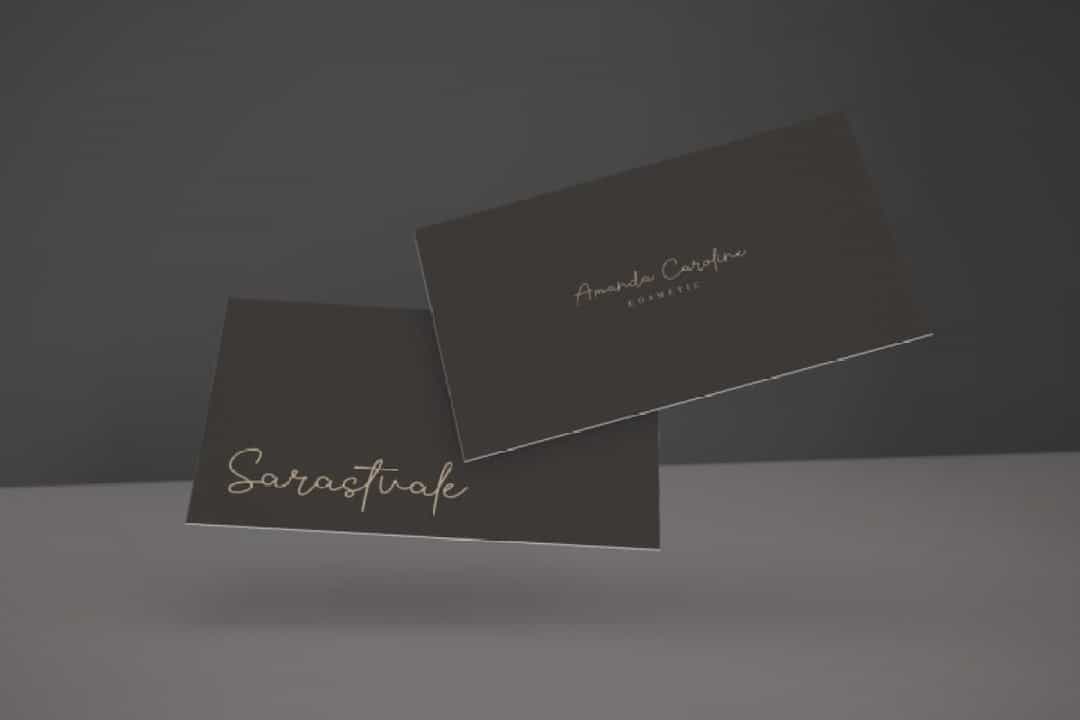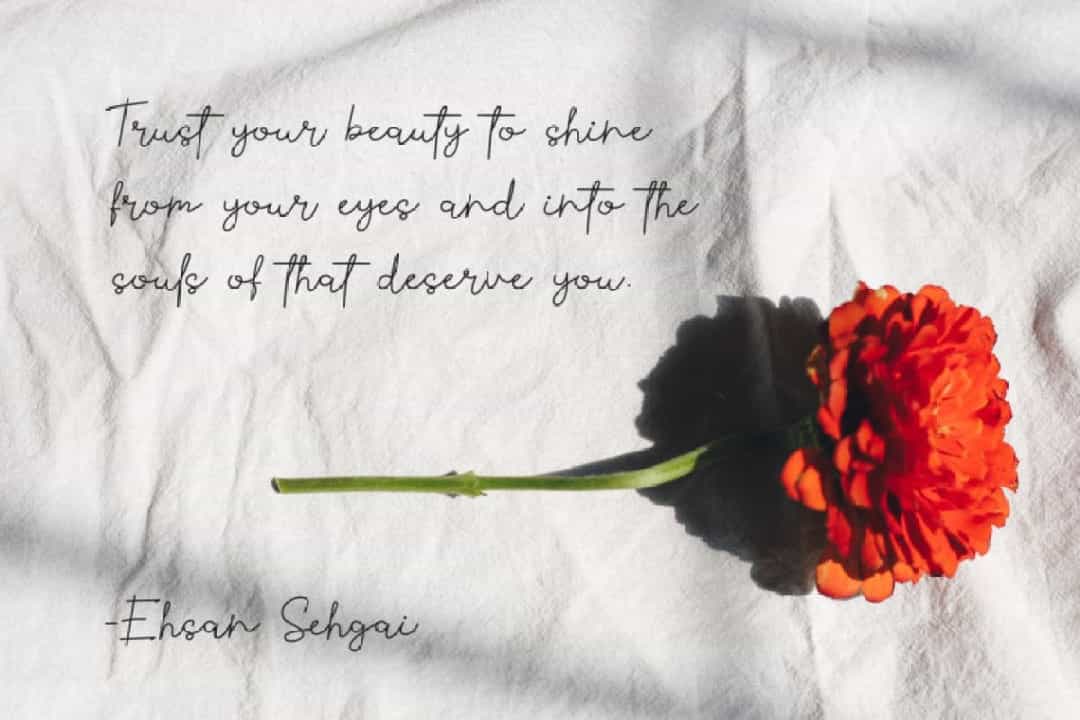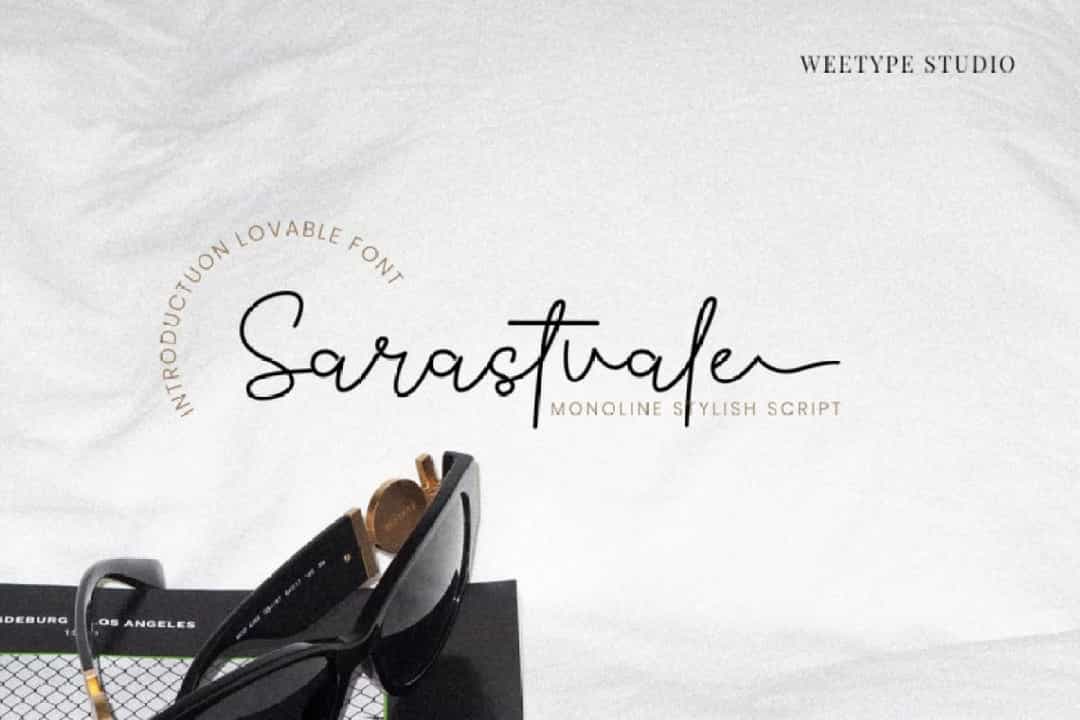
Discover Sarastvale Monoline Signature Script Font, part of the Handwritten Script Monoline collection—a versatile and unique font perfect for adding a personal touch to your projects. Download it for free and enjoy crafting designs with style, from invitations to social media posts. This font is available exclusively for personal use, giving you the freedom to create without limits. Unlock your creativity with Sarastvale Monoline Signature Script Font today!
It is a cursive type font and is more appropriate for signatures and the style used has some curved lines and has an ink drawn look. It is ideal for the branding projects, weddings logo, ads, sharing on the social networks, packaging of the products, labels, watermarks, invitations, stationery, and any other work that requires handwritten.